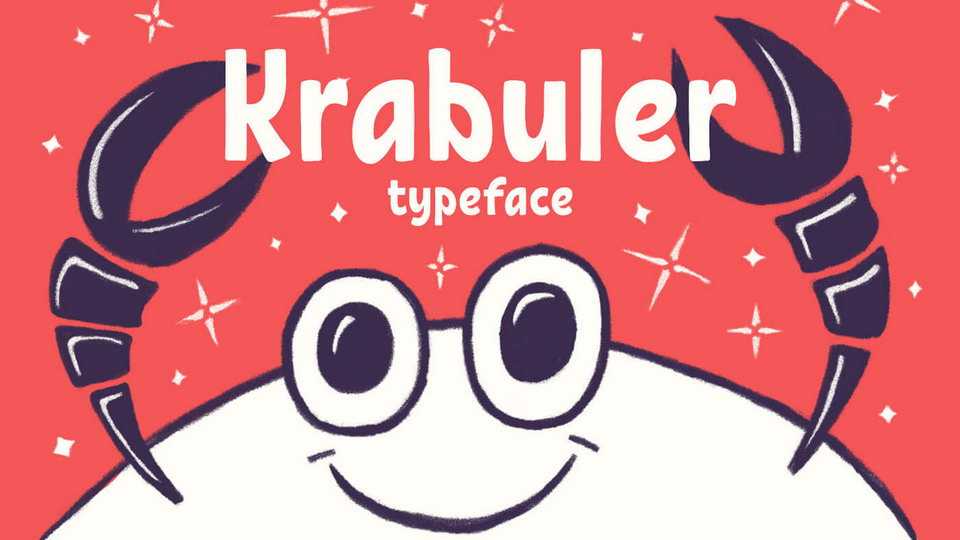
Download Krabuler font, a cute handwritten font to add to your design fun and good mood. It was made specifically for kids. Cartoons, books, children’s products, logotypes – this is his natural habitat. At the same time the font will help to solve any design tasks.